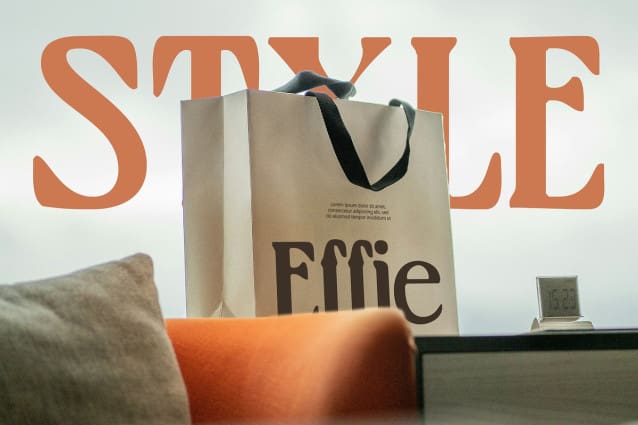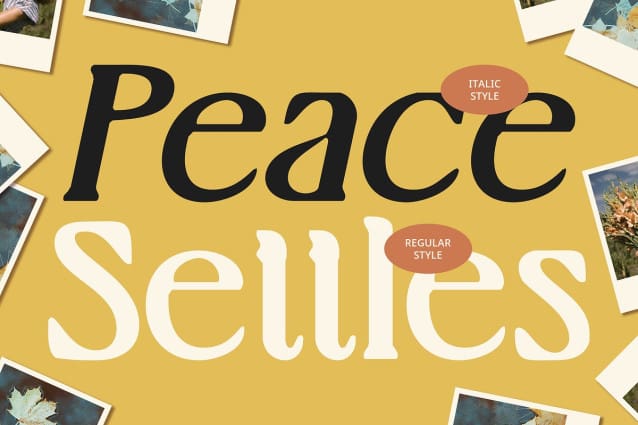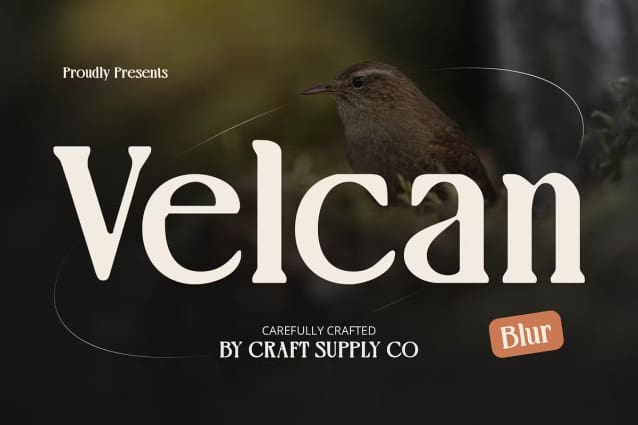
Velcan Blur Font
Velcan Blur Font is a modern serif font that beautifully combines classic luxury with a sleek, refined design. Its clean, structured serif lines and balanced proportions give it a timeless, sophisticated appearance, while the blur effect enhances its visual depth, adding an artistic, dynamic quality. The blurred edges soften the design, creating a sense of mystery and intrigue, offering a unique contrast between elegance and a contemporary, experimental edge.
A Soft, Integrated Look with Depth and Texture The blur effect in Velcan Blur adds an additional layer of visual interest, transforming the traditional serif form into something more captivating and ethereal. This subtle distortion gives the font a softer, integrated feel, as if the text itself is gently fading into the background, creating a modern and almost futuristic vibe. The delicate blend of traditional and blurred aesthetics makes this font ideal for projects that require both elegance and artistic expression.
Perfect for Luxury Branding and High-End Designs Velcan Blur is ideal for high-end editorial designs, luxury branding, and formal invitations, where the goal is to create a sophisticated yet unique impression. The blurred effect introduces an experimental flair, while the refined serif form maintains a sense of prestige and elegance. Perfect for designs seeking a blend of tradition with a contemporary, forward-thinking approach.